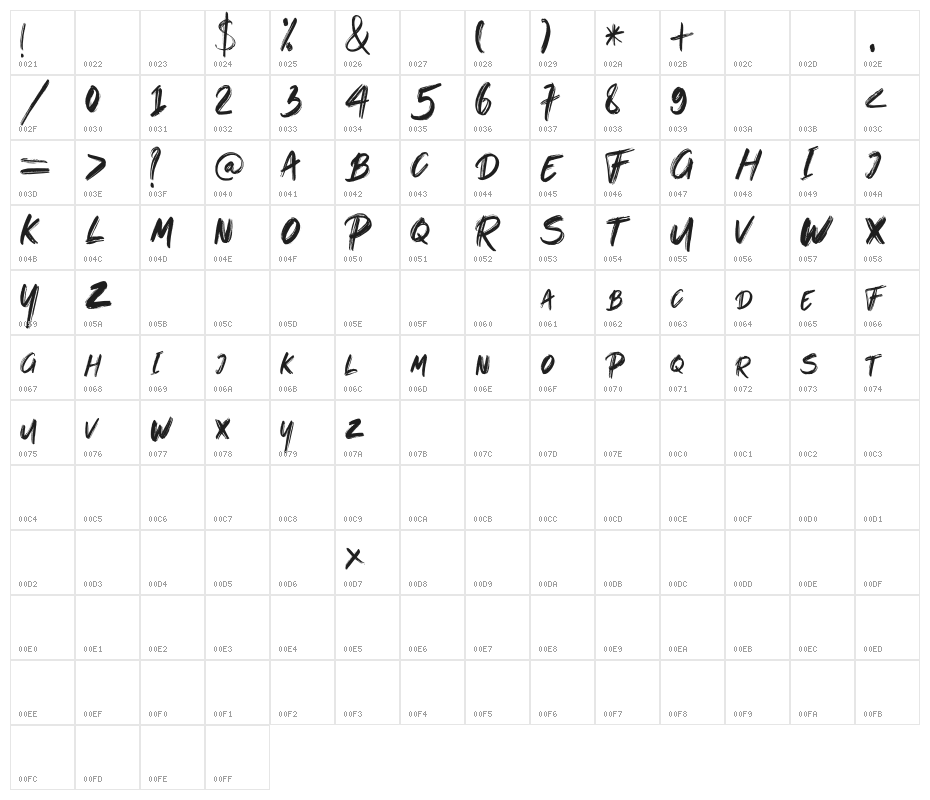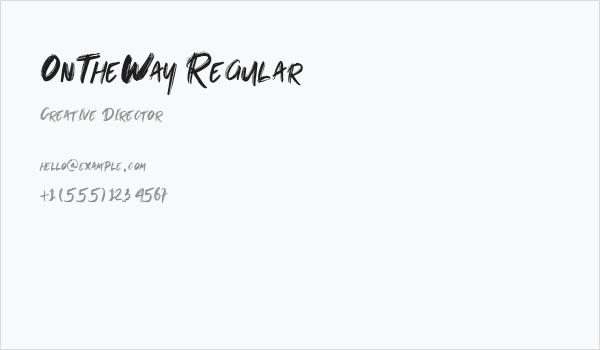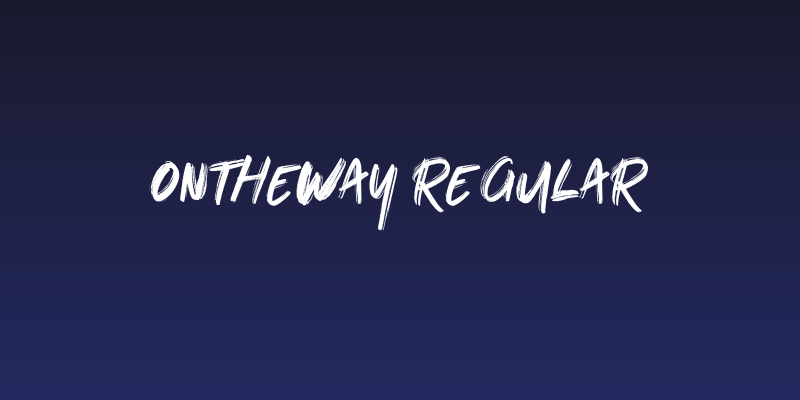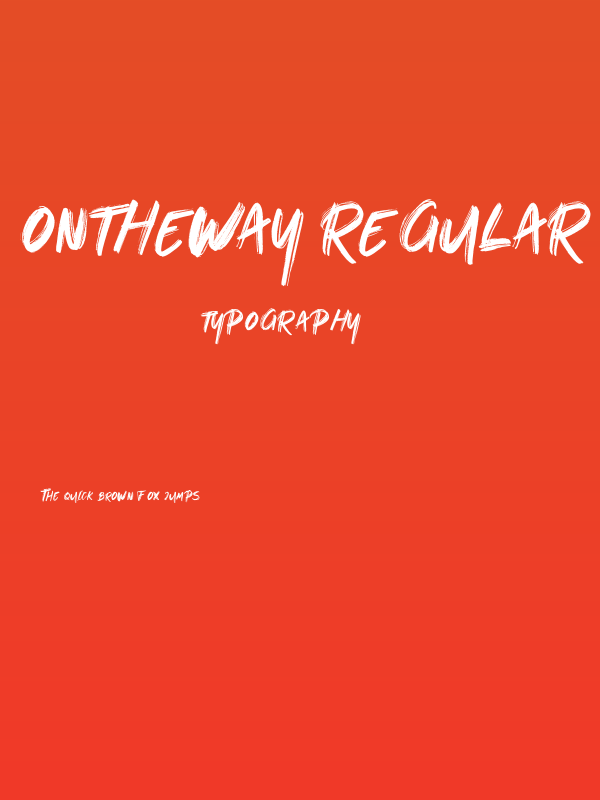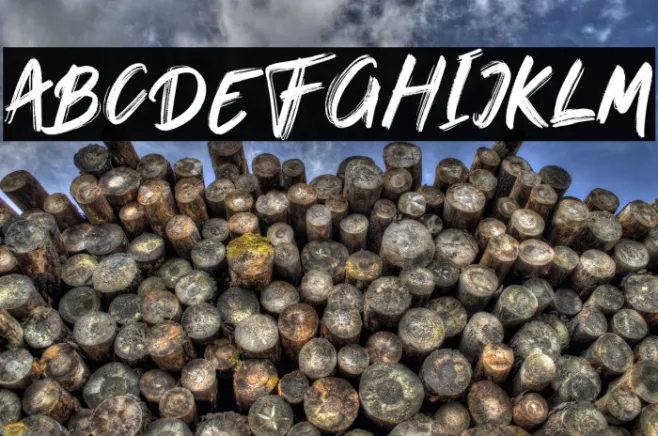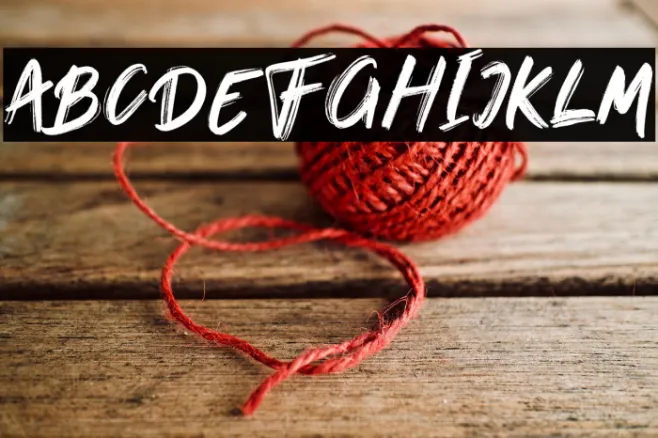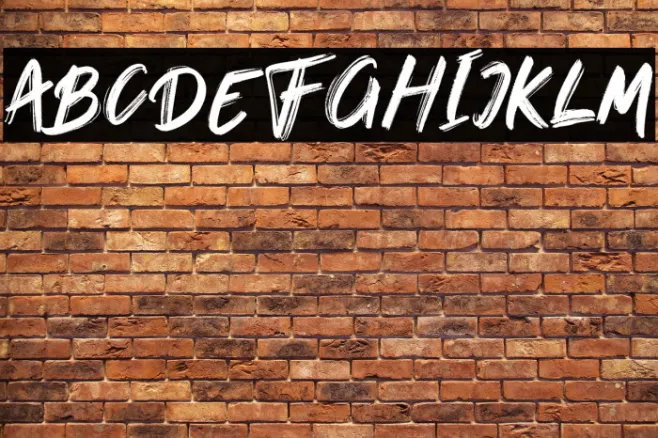
OnTheWay-Regular Font
OnTheWay-Regular Description
This font features a bold, expressive brush style that exudes energy and dynamism. The strokes are thick and uneven, giving it a hand-painted appearance. Each character is unique, with varying angles and curves that add to its artistic flair. The uppercase and lowercase letters maintain a consistent style, while the numerals and special characters blend seamlessly with the overall design. This font is ideal for projects that require a strong visual impact and a personal touch.
| Proposed Projects | Ideal for branding, posters, album covers, and any project that requires a dynamic and artistic touch. |